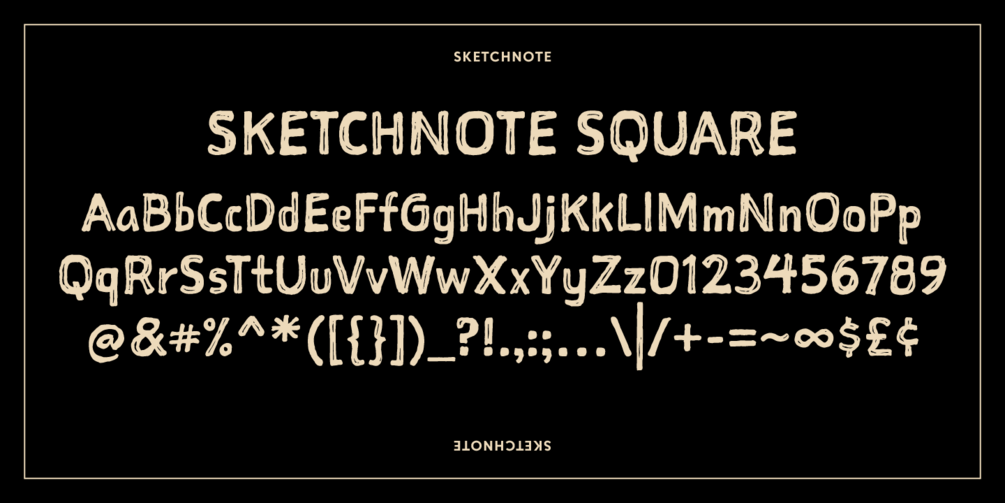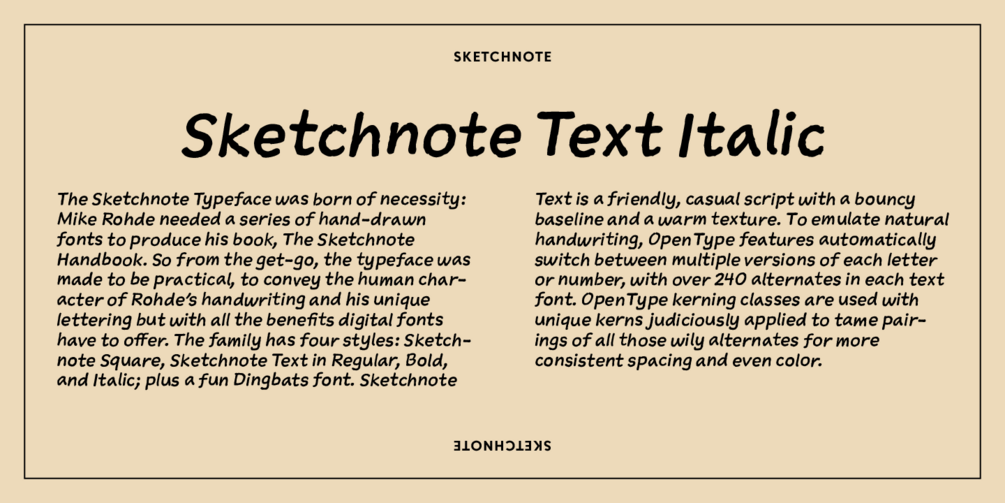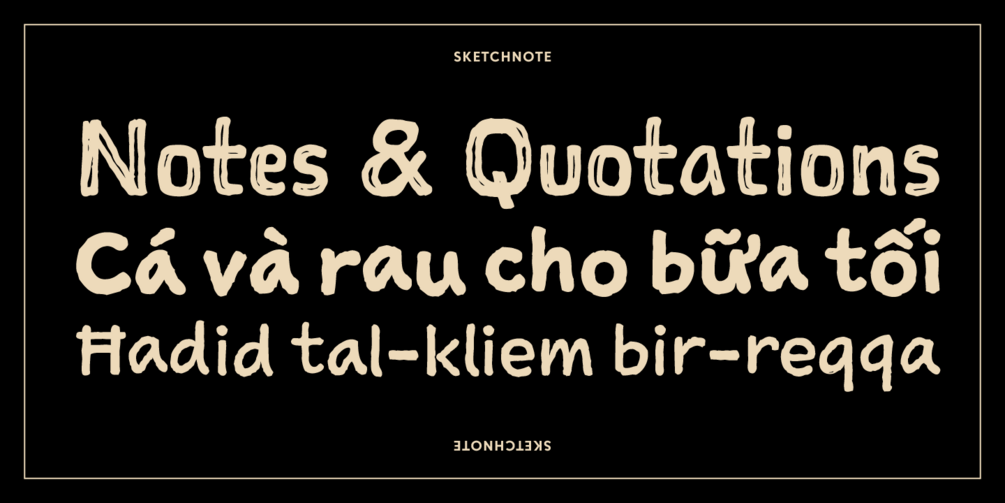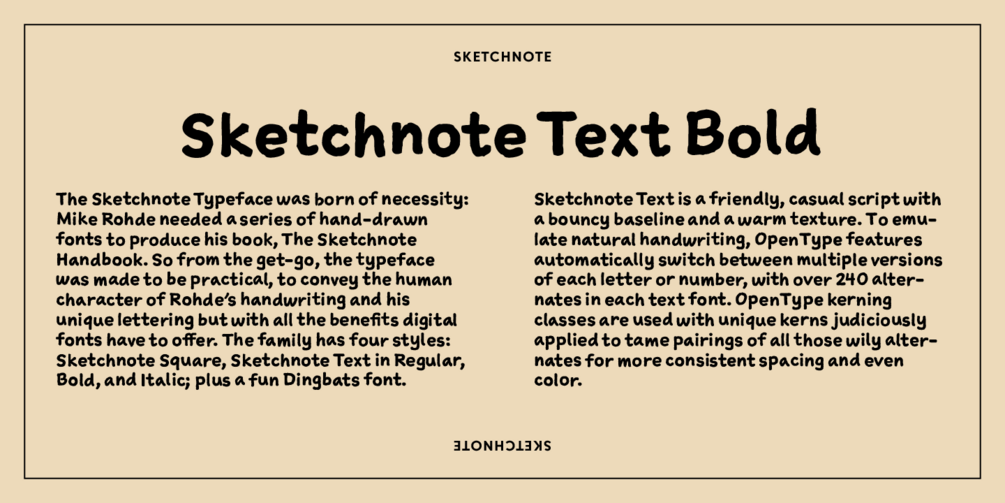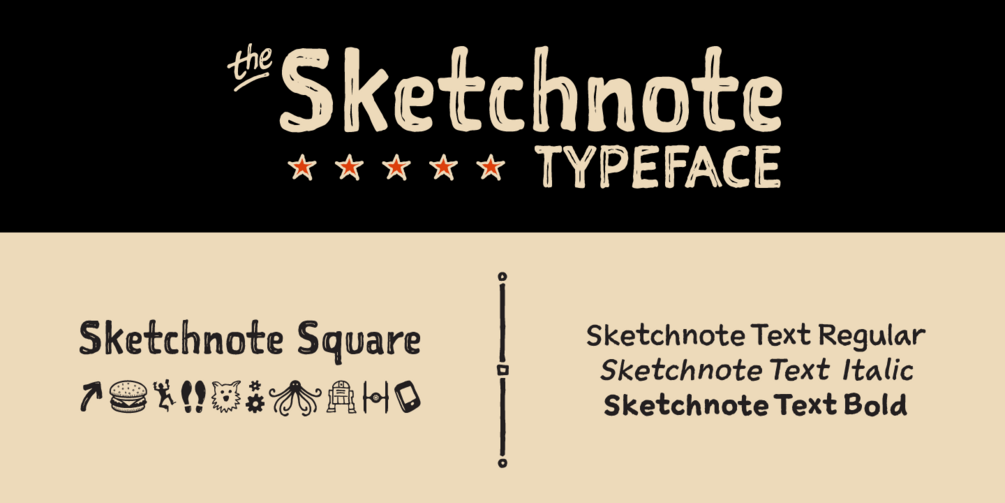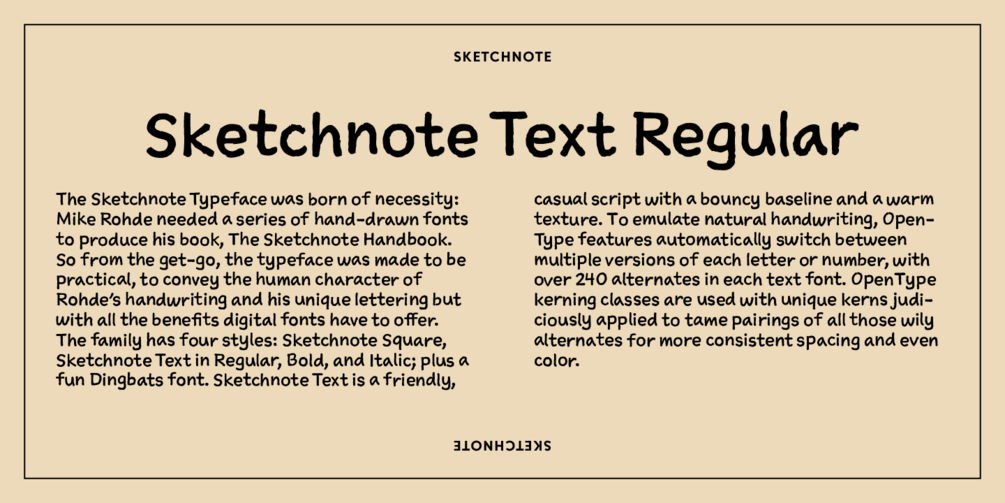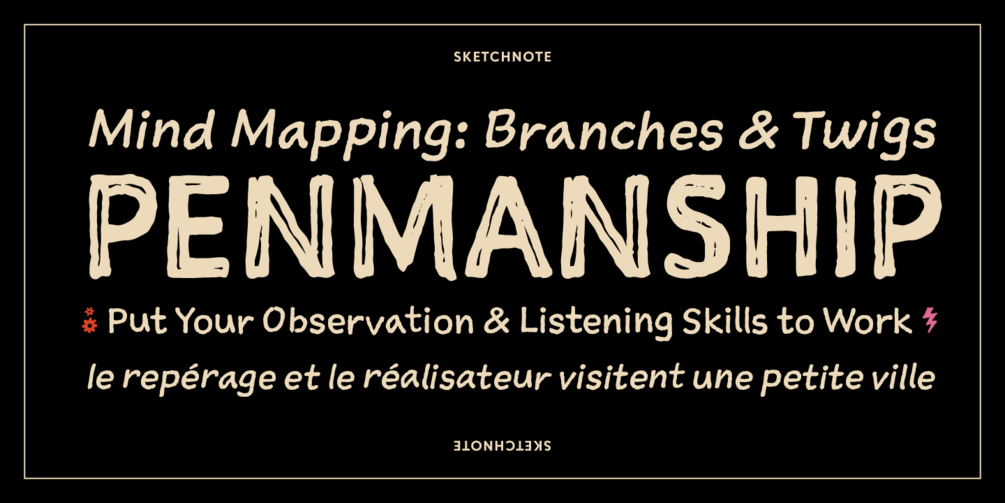
The Sketchnote Typeface is a fun and clever handwritten, hand-drawn type family designed by Mike Rohde, the celebrated author of The Sketchnote Handbook and The Sketchnote Workbook.
Sketchnote Text is a friendly, casual script with a bouncy baseline, a warm texture, and multiple alternates of characters that make for a more natural, handwritten appearance. Sketchnote Square is a bold, somewhat compressed headline type made to complement the three body text fonts. Drawn instead of written, the characters in Square have neat little happenstance voids within the strokes. Sketchnote Dingbats features a selection of handy icons, rules, and arrows in the Sketchnote style.
Sketchnote can fulfill the demands of a variety of design projects where a handcrafted aesthetic and ease-of-use are desired.